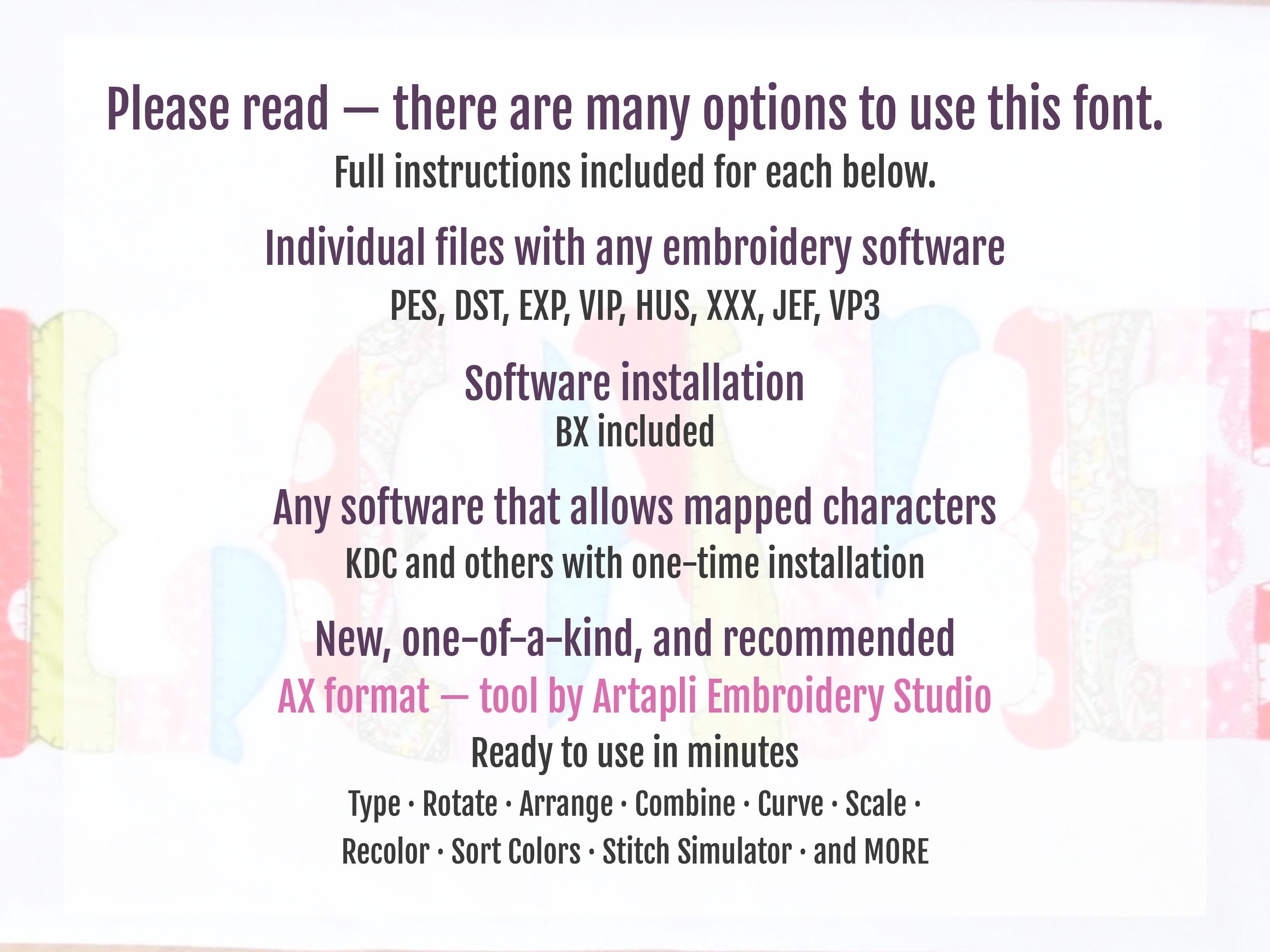
Cute Patchwork rag edges applique font alphabet and numbers, machine embroidery applique designs for hoop 4x4, 5x7, 6x10, BX font and other formats
This patchwork applique has applique position lines for each section. When all position lines will be sewn next will be fabric applique nice tack down seams in same colors, so you may arrange the needed color of fabric in right place. Easy!
Use unneeded scarps and get awesome quilts, birthday shirts and study materials.